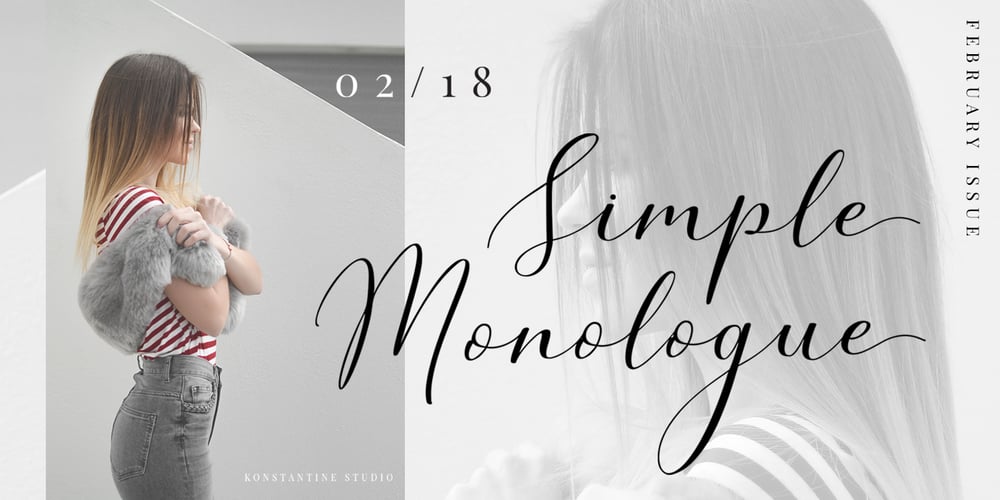
Simple Monologue
Simple Monologue font
Simple Monologue Font Family was designed by Abdilah and published by Konstantine Studio. Simple Monologue contains 2 styles and family package options. Simple Monologue, a beautiful casual modern calligraphy font. Contemporary script style that hit the trends nowadays. It would be a perfect mate for branding, logo, fashion stuff, cosmetic, apparel, journal, lookbook, greeting cards, a fancy presentation, glamor appearance, magazine. So versatile, right?